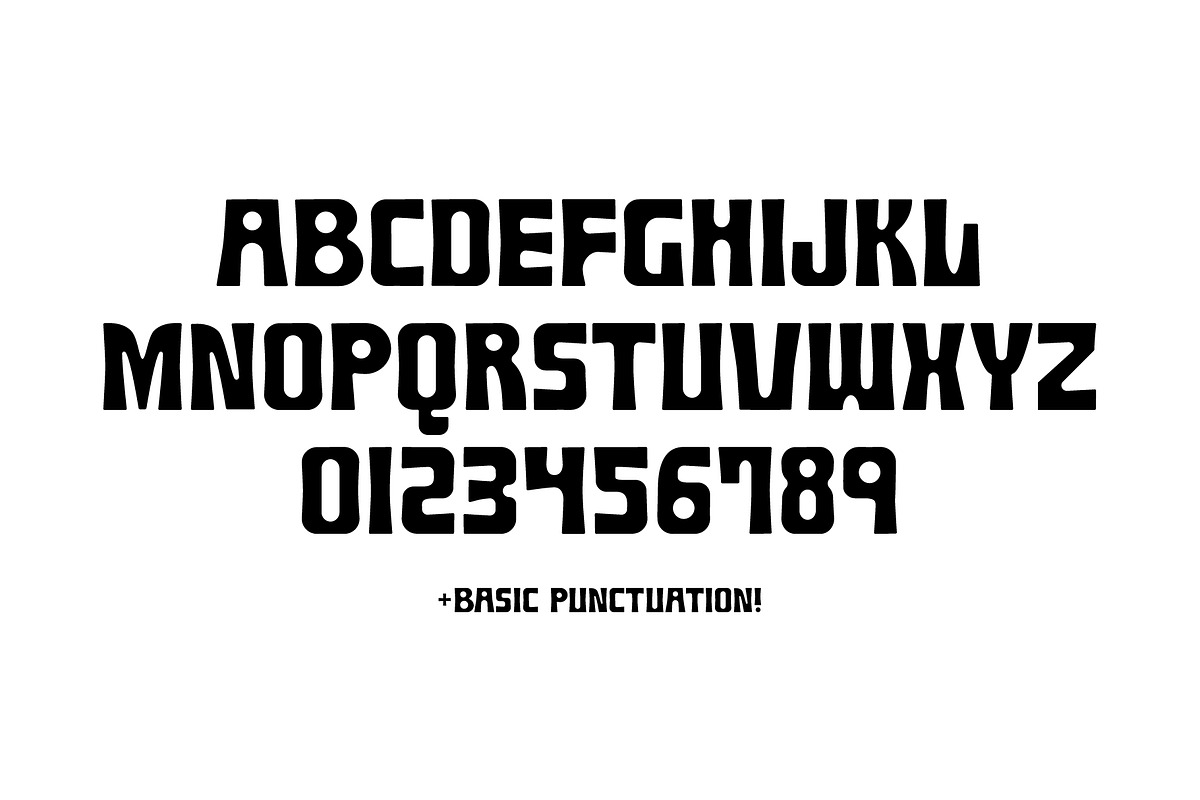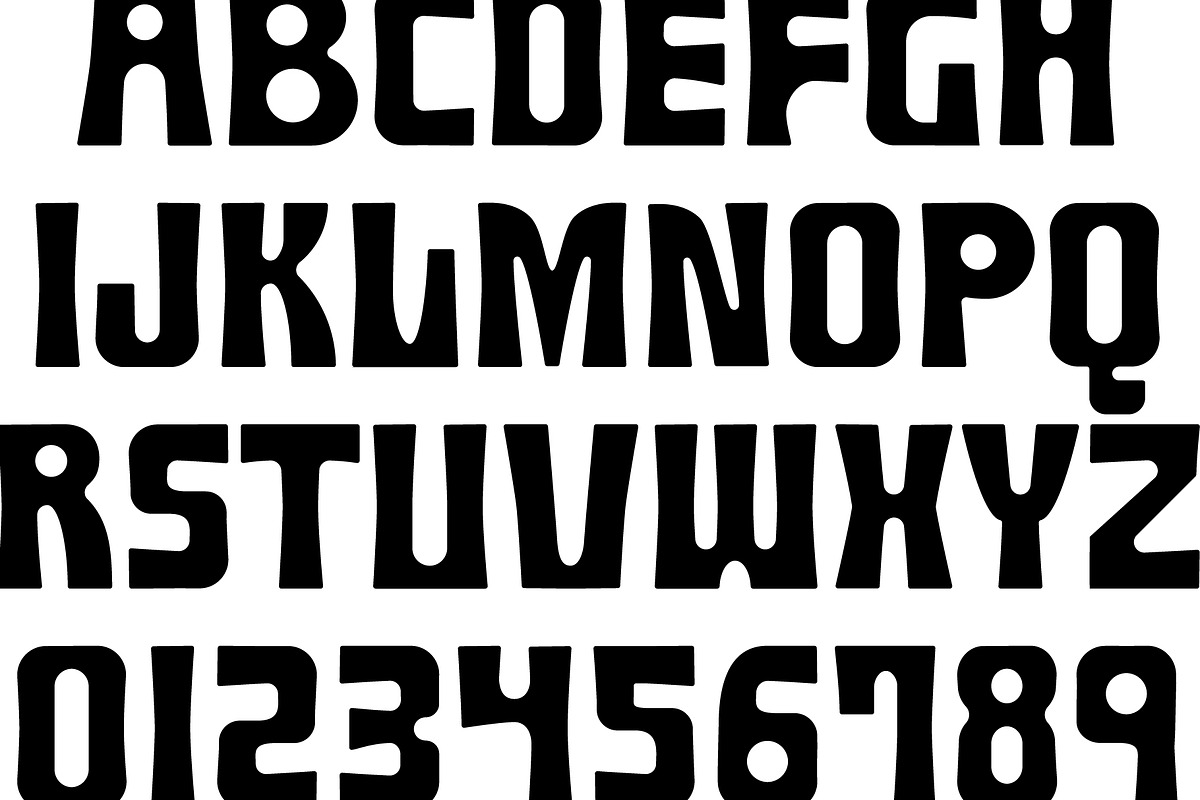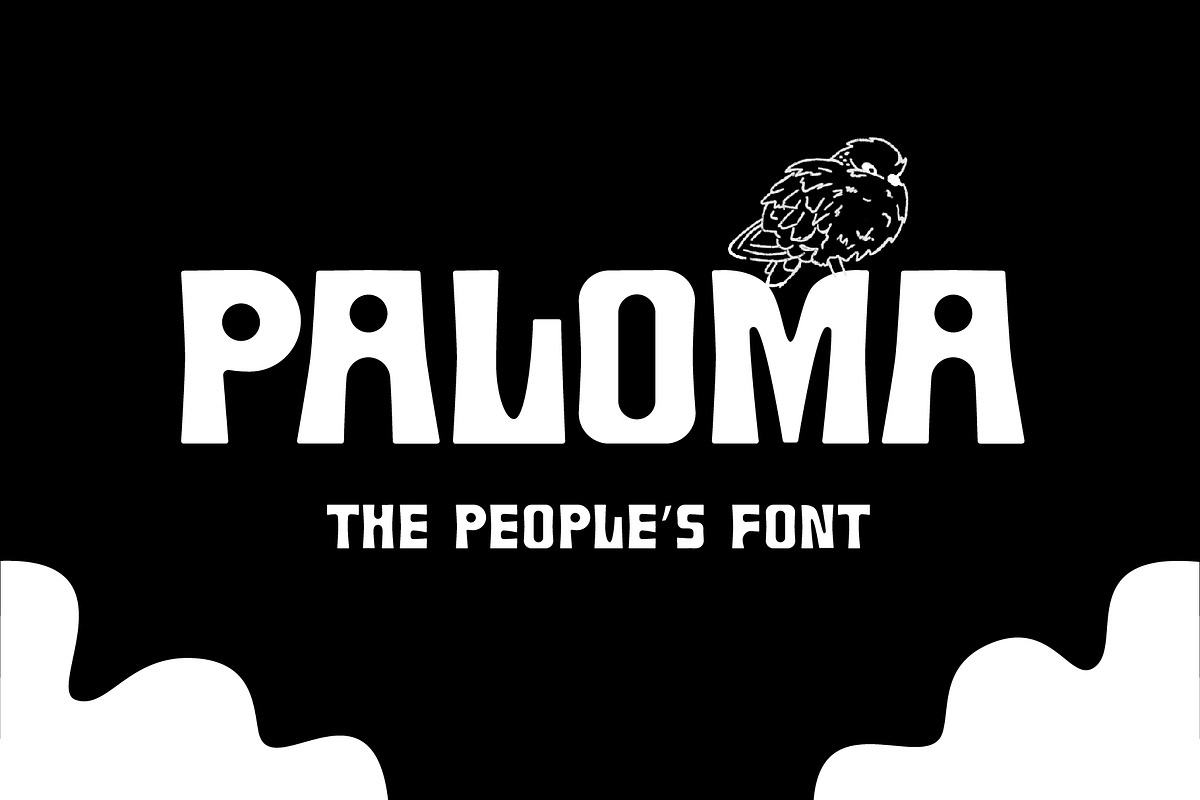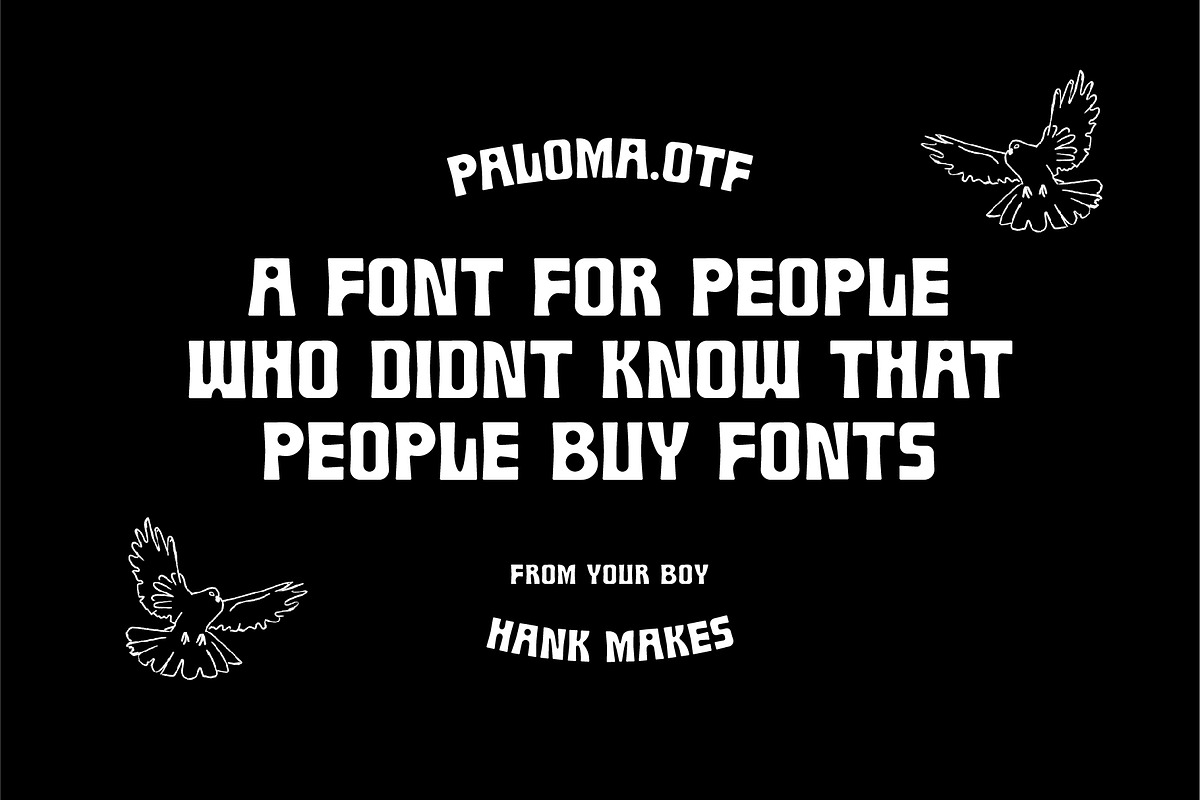
Paloma.otf, a Hank Makes Font
Paloma.otf! A retro-inspired display font that people from all walks of life will cherish and enjoy for years to come. Capitals, Numbers, and Most Punctuation included.